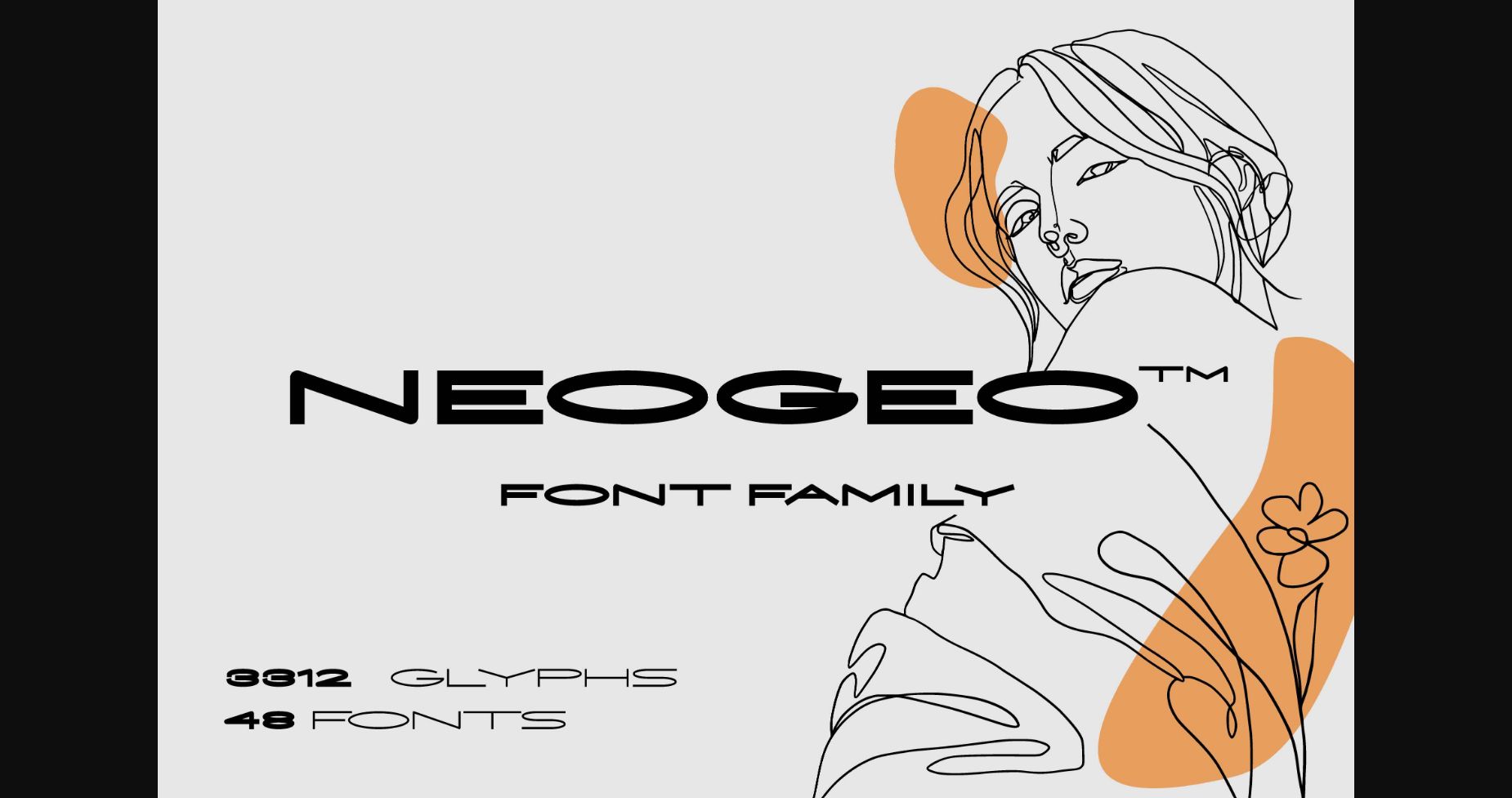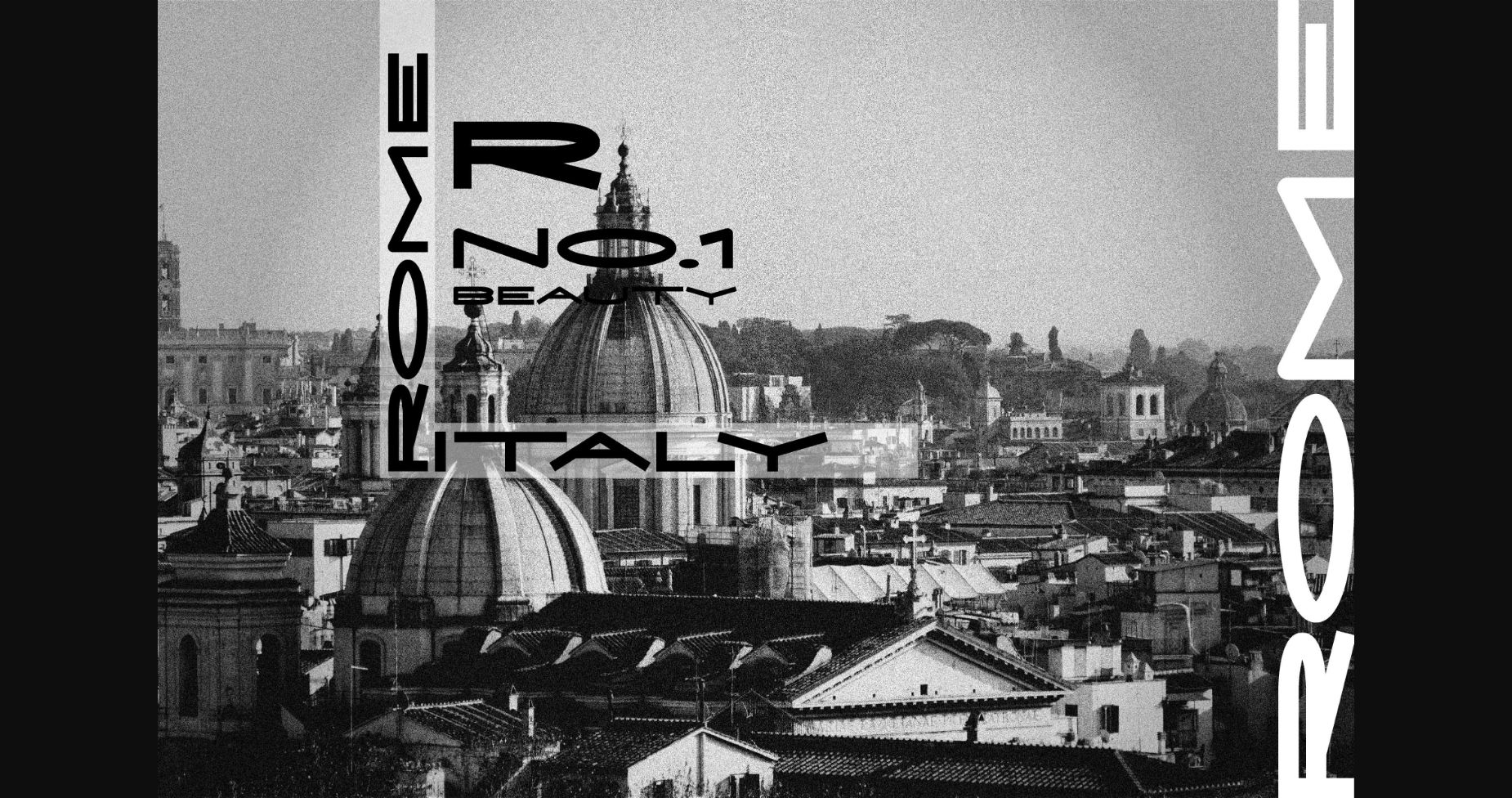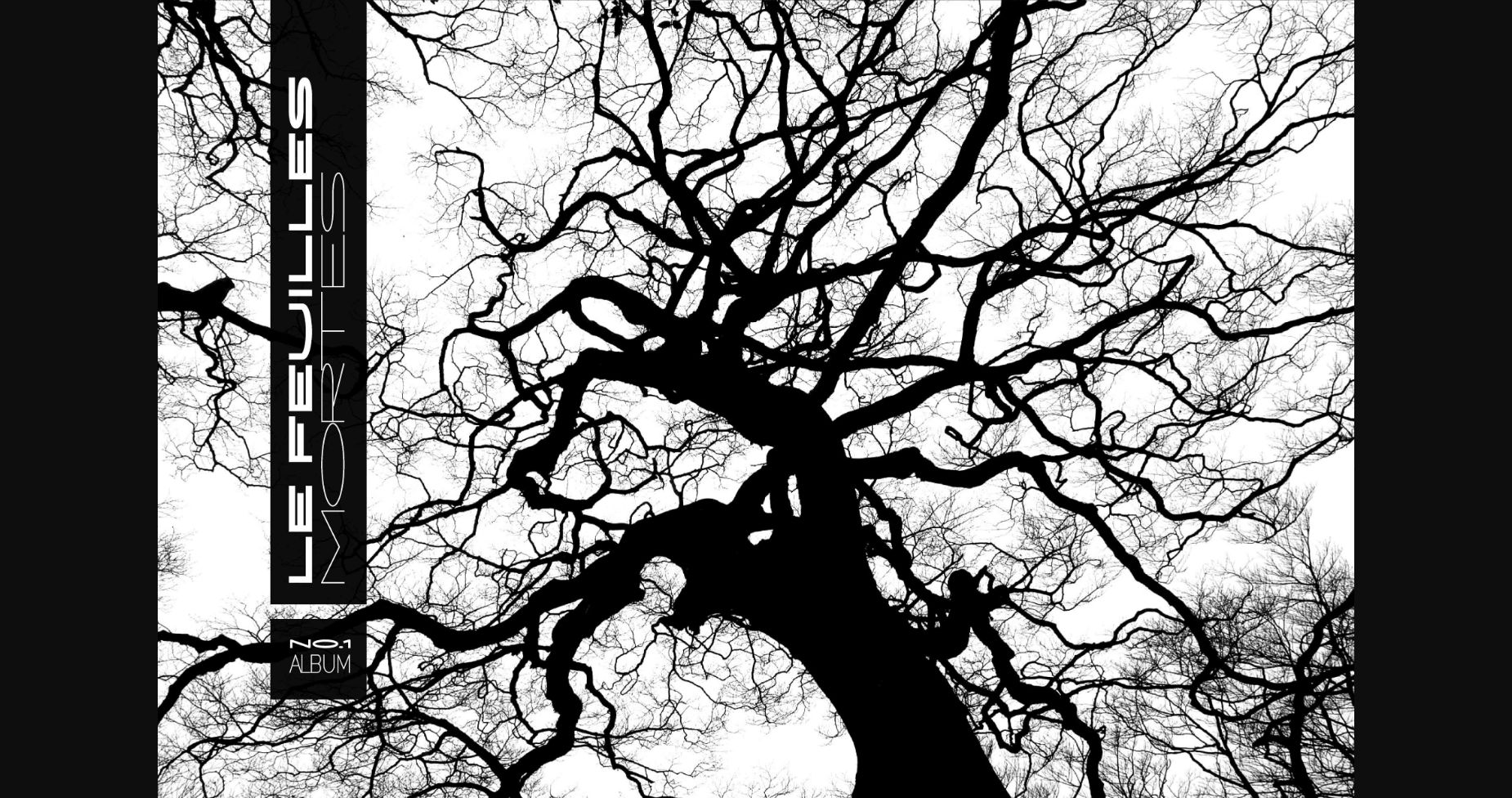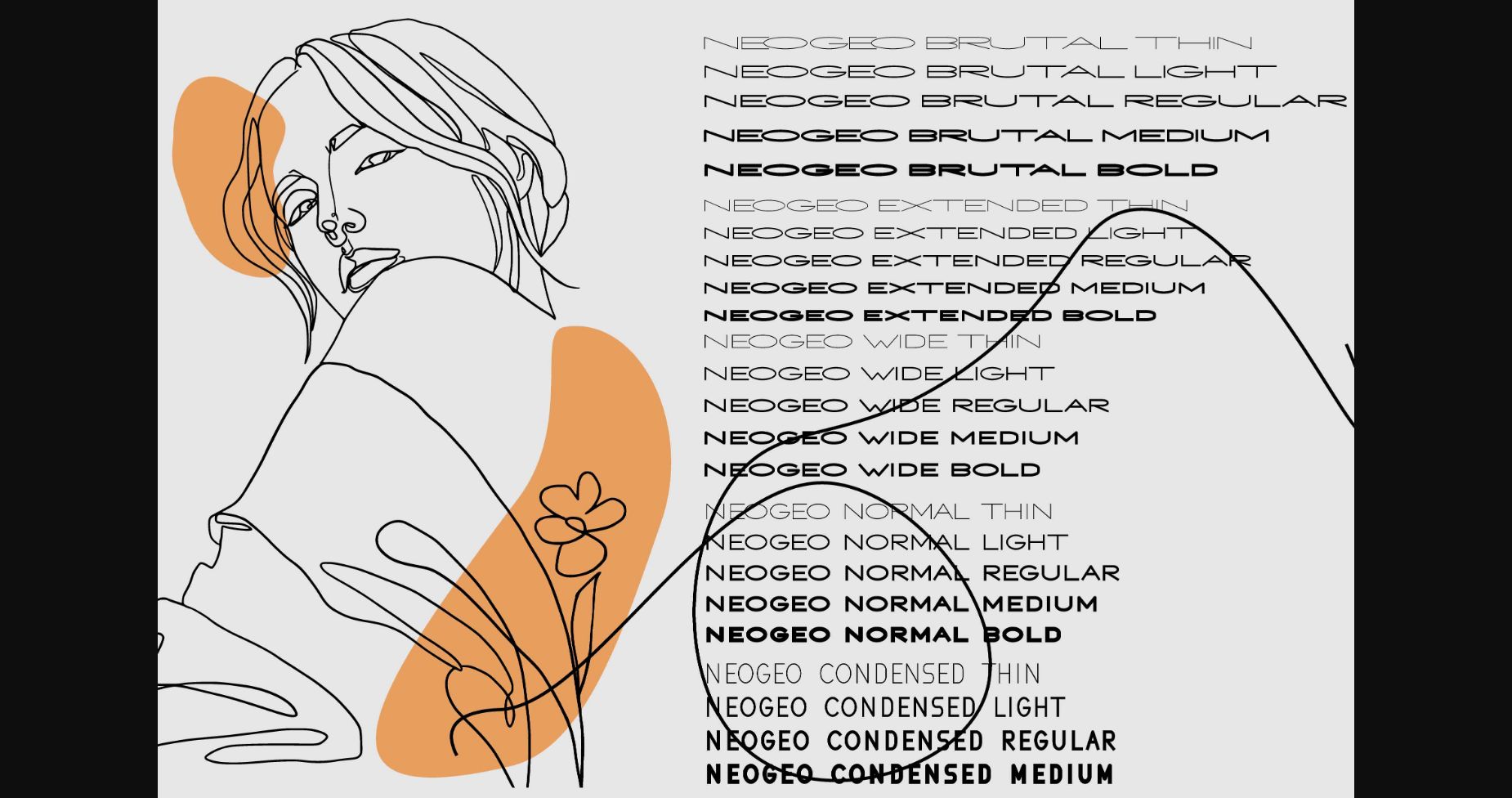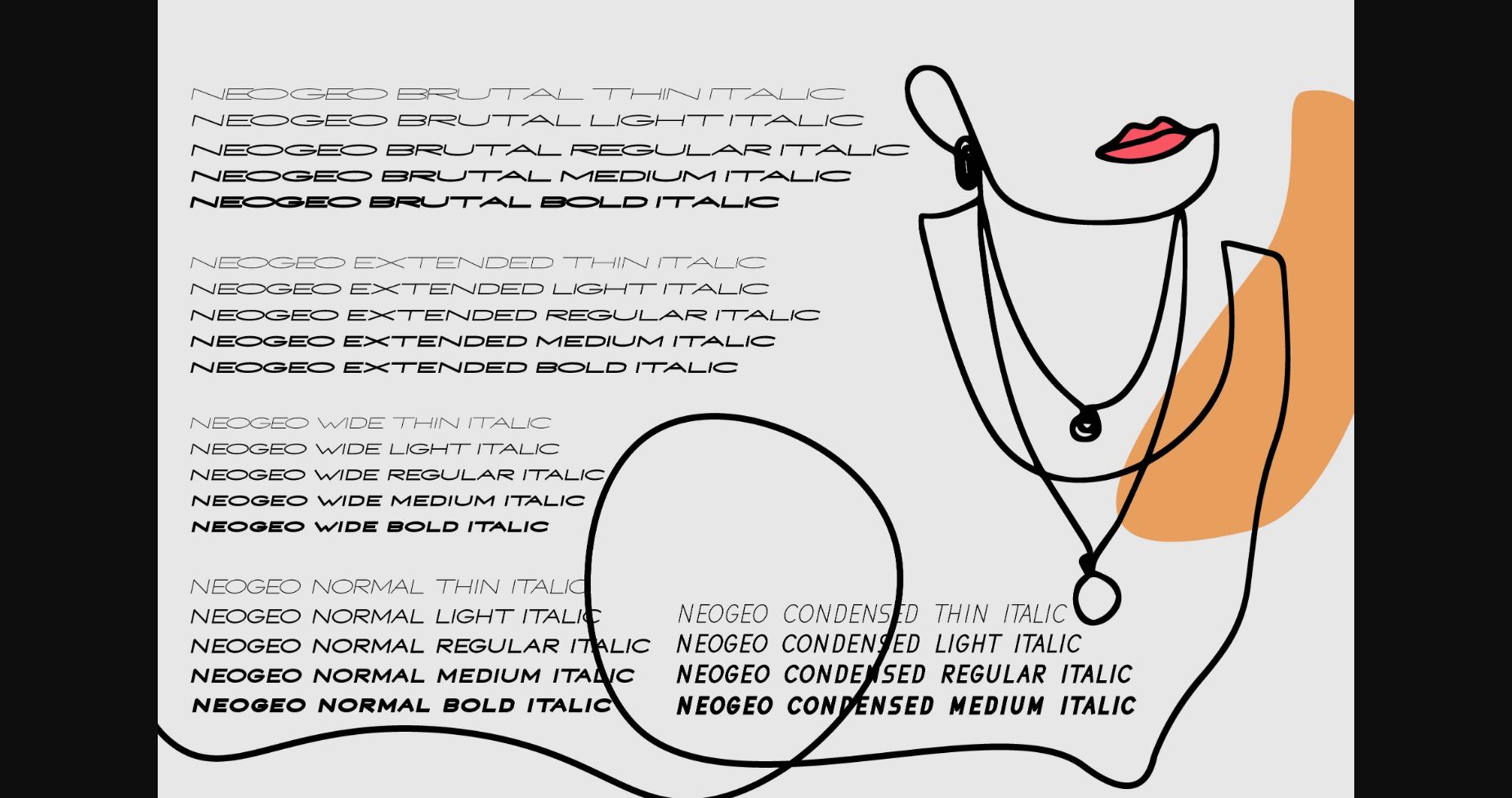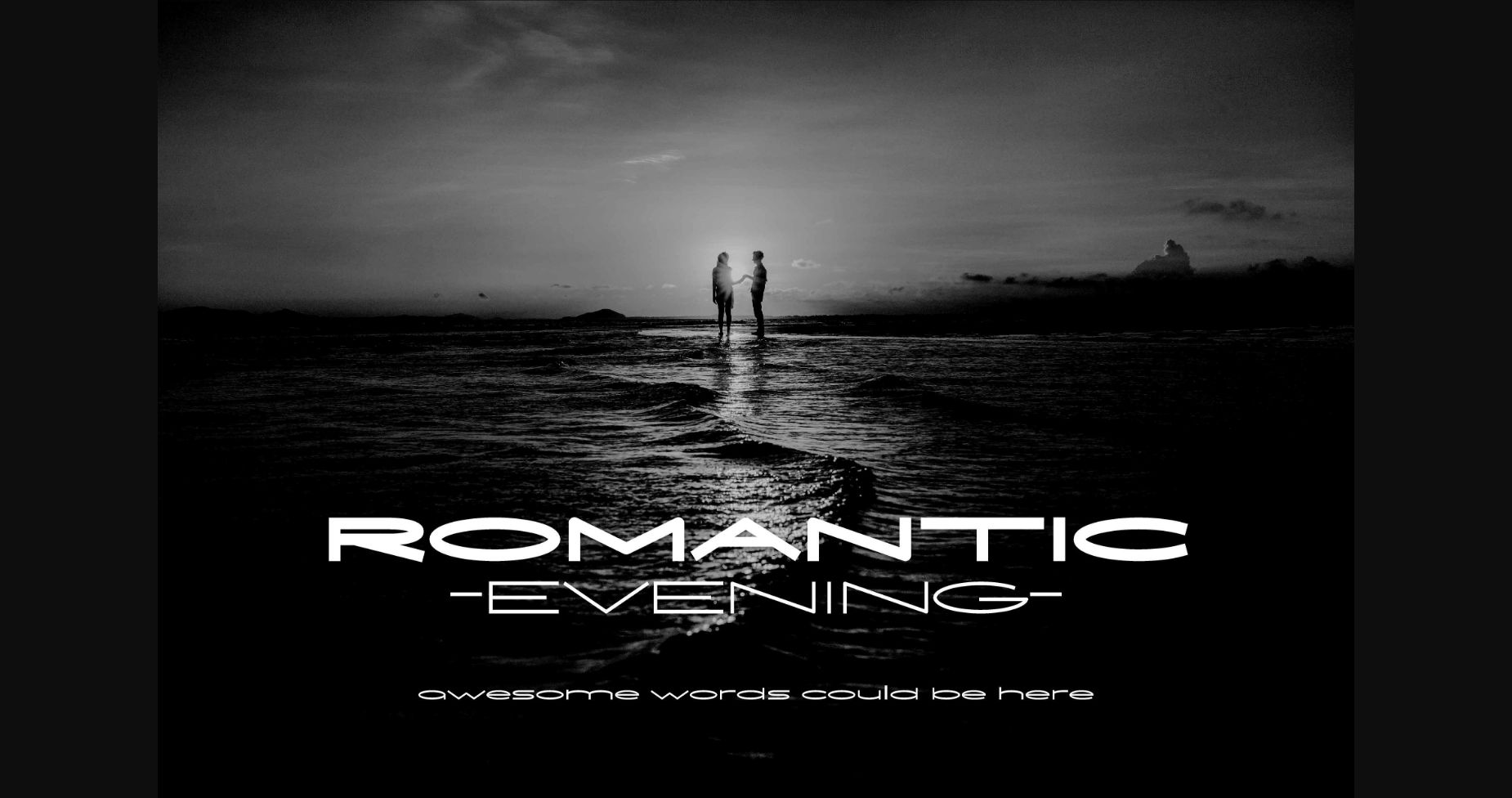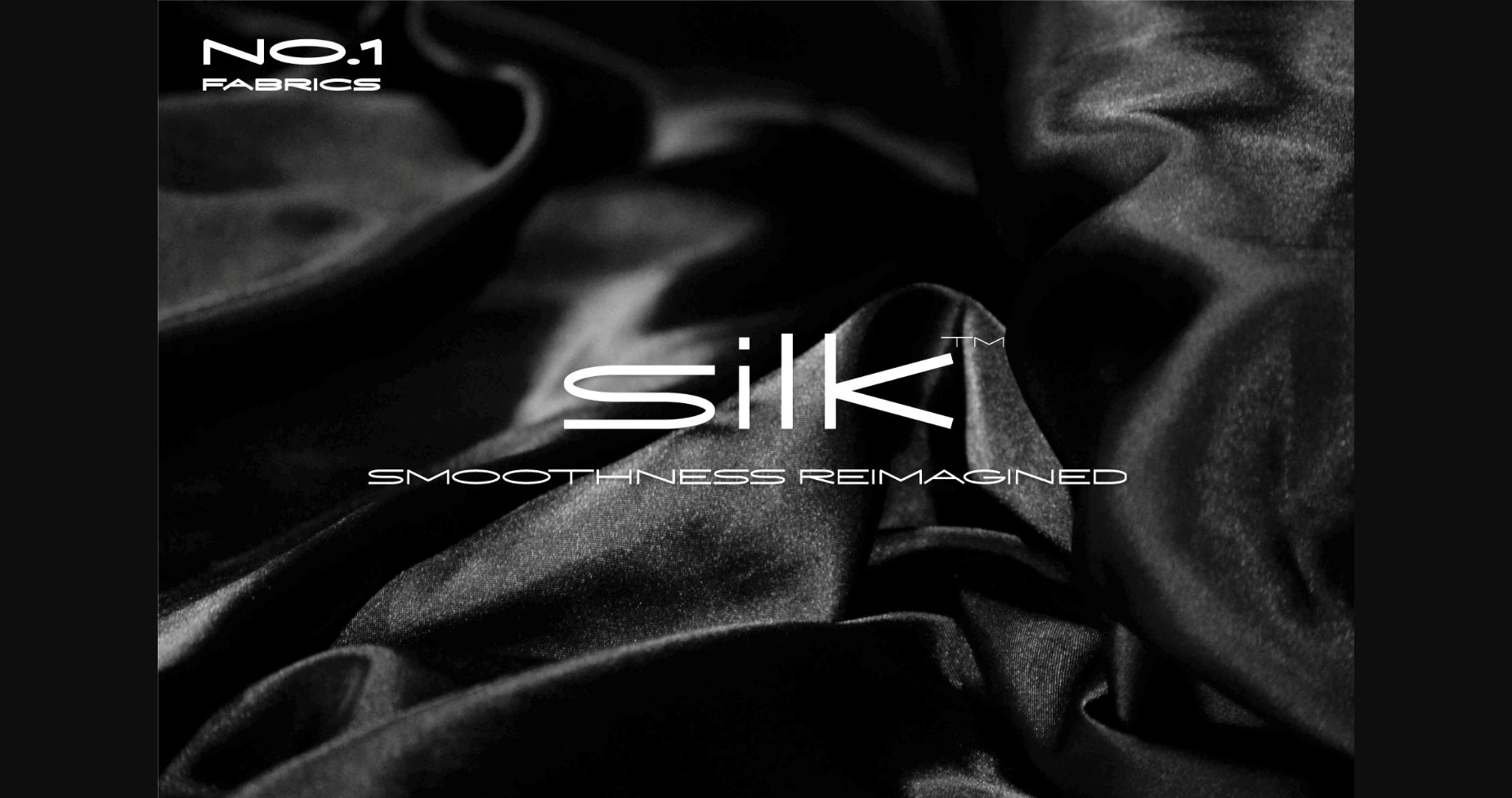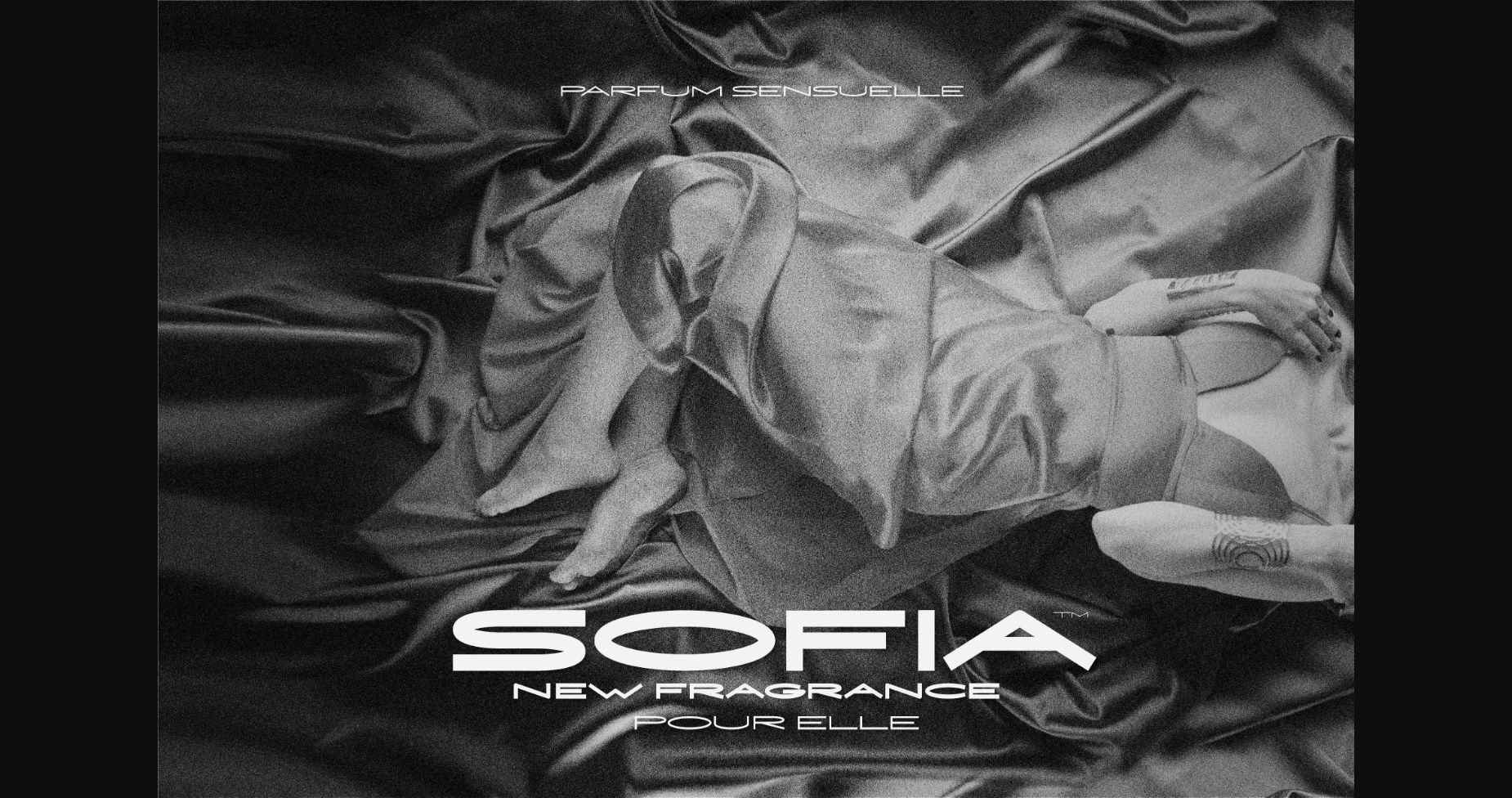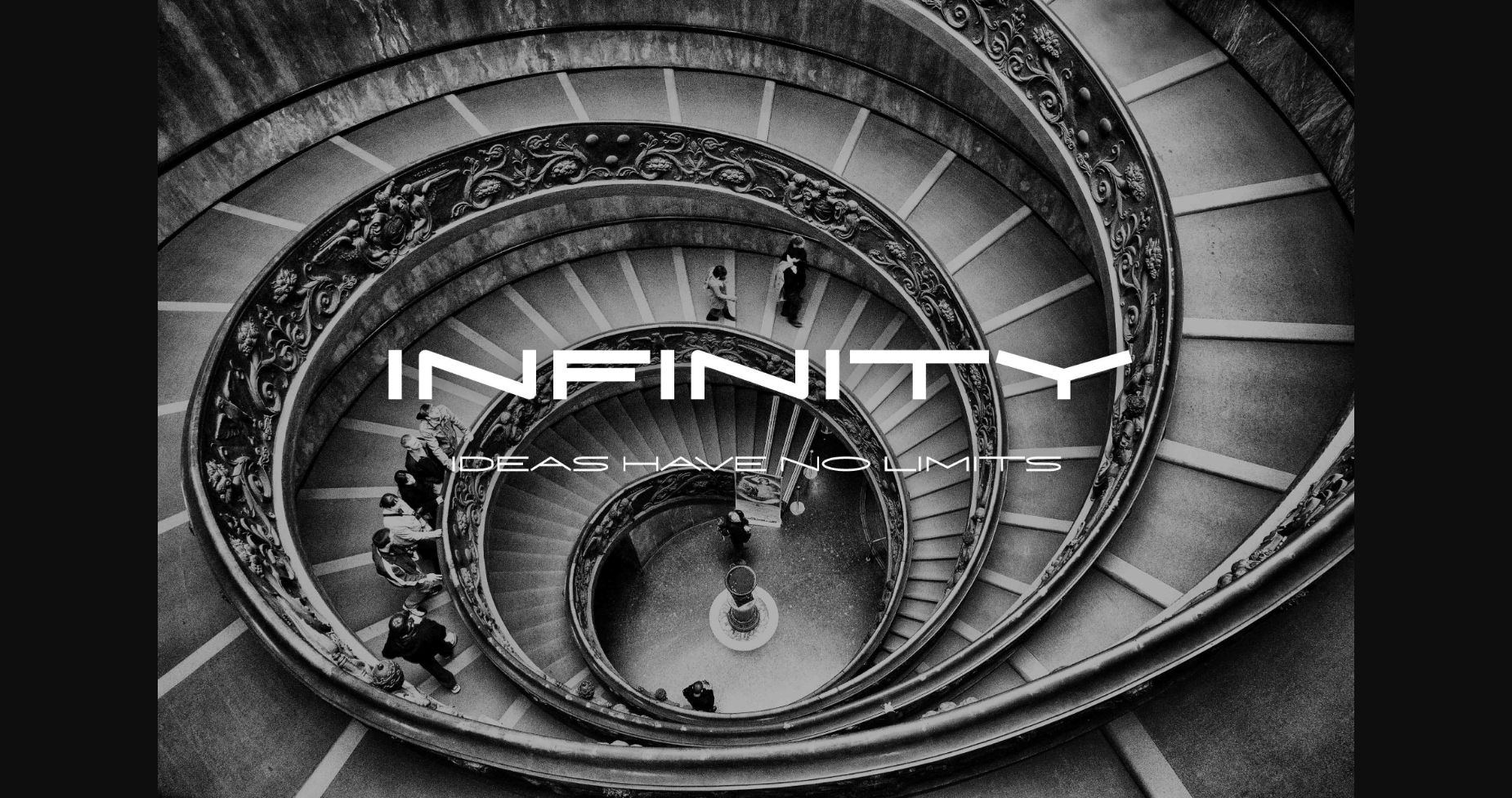
HomeSans Serif FontsNeogeo Font Sans Serif Fonts Neogeo Font FacebookXPinterestWhatsApp 1 of 11 ... Neogeo Font Poster 2... Neogeo Font Poster 3... Neogeo Font Poster 4... Neogeo Font Poster 5... Neogeo Font Poster 6... Neogeo Font Poster 7... Neogeo Font Poster 8... Neogeo Font Poster 9... Neogeo Font Poster 10... Neogeo Font Poster 11... About Neogeo Font Neogeo is a cool and bold sans serif font. It is perfect for product packaging, branding project, magazine covers, social media, wedding, or just used to express words above the background. DOWNLOAD NOW People also explored Vikor Font Monday Font Tperpunto Font Hivives Font Blessful Font Peradaban Font Marytte Font FT Stamper Bloom Font 377 0 TagsNeogeoNeogeo Font Previous articleSyage FontNext articleMerry Christmas Font LEAVE A REPLY Cancel reply Comment: Please enter your comment! Name:* Please enter your name here Email:* You have entered an incorrect email address! Please enter your email address here Website: Save my name, email, and website in this browser for the next time I comment. Personal Use Free Letter Clips Personal Use Free Read more about this font Open Heart Personal Use Free Read more about this font Muthiara Font Personal Use Free Read more about this font Bestlife Personal Use Free Read more about this font BLOG Free vs Paid Fonts: Why Investing in Premium Fonts Is Worth It Free vs Paid Fonts: Why Premium Fonts Are Worth It in 2025 The debate of free vs paid fonts continues in the design world. While... Top 10 Handwritten Fonts That Elevate Your Designs Modern Sans-Serif Fonts That Brands Love in 2025 To increase your work productivity, choose the most readable fonts.